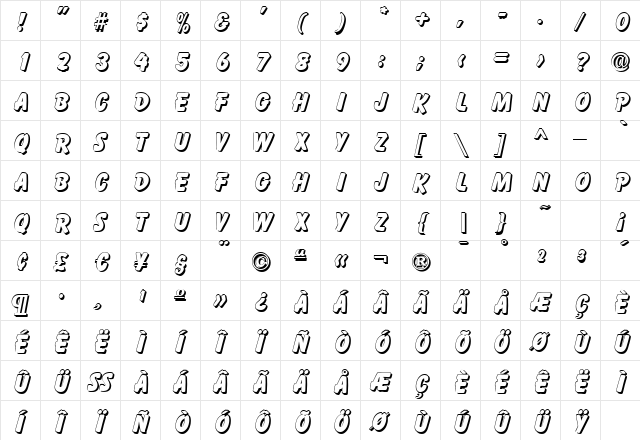
ElizabethBeckerShadow ExtraBold Font Preview
ElizabethBeckerShadow ExtraBold
Design Context for ElizabethBeckerShadow Typeface
ElizabethBeckerShadow brings ornamental detail and strong personality to headlines and identities, where visual impact matters more than quiet functionality. The heavy weight commands attention and anchors typographic hierarchies.
Font Pairing: Pair with a clean neutral sans-serif for body copy to let ElizabethBeckerShadow's character lead without overwhelming the composition.
Pro Tip: Treat ElizabethBeckerShadow as the centrepiece of your typographic hierarchy. One strong heading set in a decorative face can carry an entire layout.